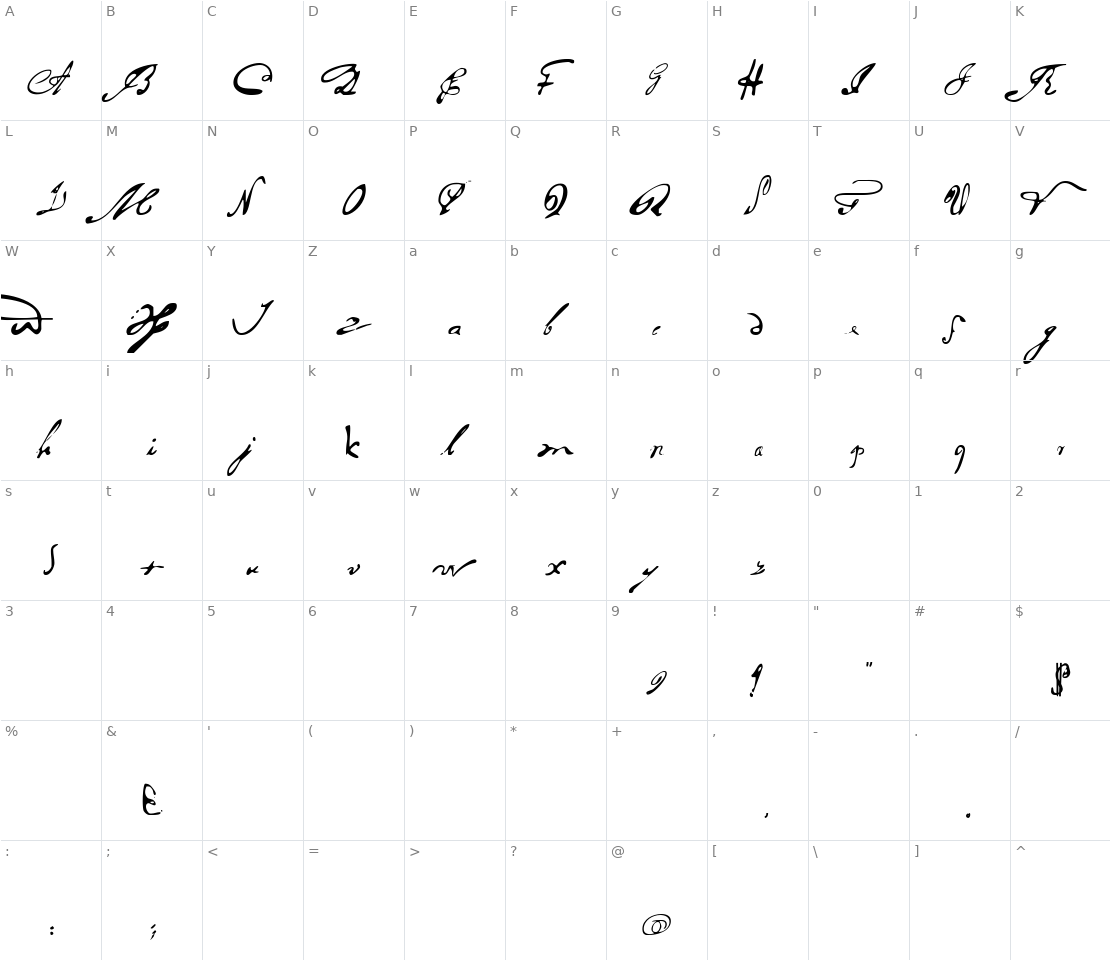
Portugues Arcaico Lectura
Portugues Arcaico Lectura is a handwritten face from Intellecta Design that replicates the uneven, ink-heavy strokes of archaic Portuguese manuscripts. The letterforms carry visible pen variation and scratchy imperfections, with the kind of organic irregularity that only comes from real historical source material. Best used for period-themed editorial work, book design, or any project that needs to feel genuinely aged rather than artificially distressed.